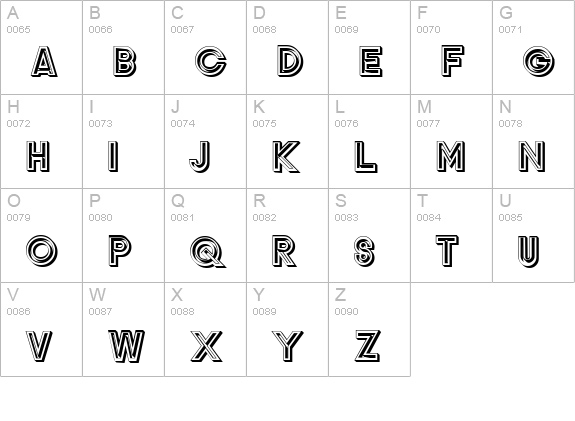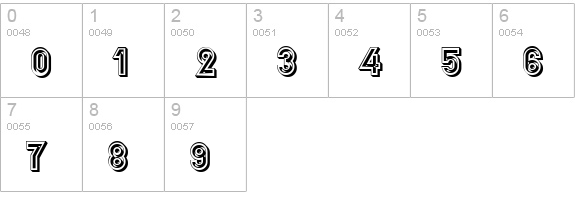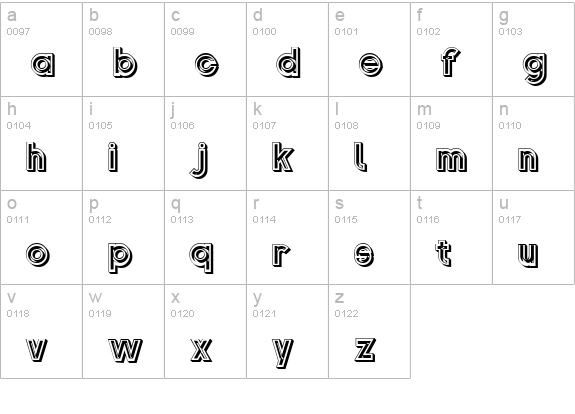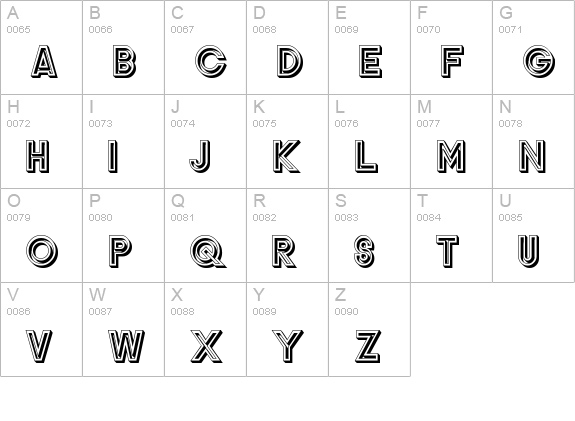
Gondrin Font Details
Gondrin font is a stunning display typeface that combines elegance with a touch of modernity. Its refined and stylish letterforms are perfect for adding a sophisticated look to any design project. The clean lines and graceful curves of Gondrin make it versatile and easily readable, making it suitable for both headline and body text. With its wide range of weights and styles, Gondrin offers endless possibilities for creative expression. Whether you're designing a logo, a website, a poster, or any other visual project, this font will effortlessly elevate your work to the next level. But what makes Gondrin font even more special is that it is available for free! That's right, you can freely download this incredible typeface at FontsMarket.com. This means that you can enjoy all the benefits and beauty of Gondrin without having to spend a dime. So why wait? Experience the elegance and versatility of Gondrin font today by downloading it for free at FontsMarket.com. Enhance your designs with this remarkable typeface and watch as your work stands out from the crowd. Don't miss out on this opportunity to add a touch of sophistication to your projects with Gondrin font.